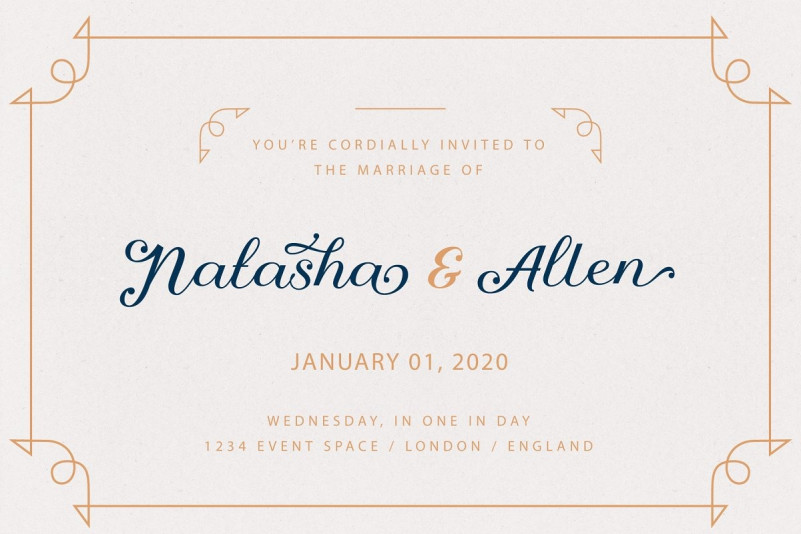
Delicious Calligraphy Font
Delicious feels equally charming and elegant. It looks stunning on wedding invitations, thank you cards, quotes, greeting cards, logos, business cards and every other design which needs a handwritten touch. Delicious is PUA encoded which means you can access all of the glyphs and swashes with ease!